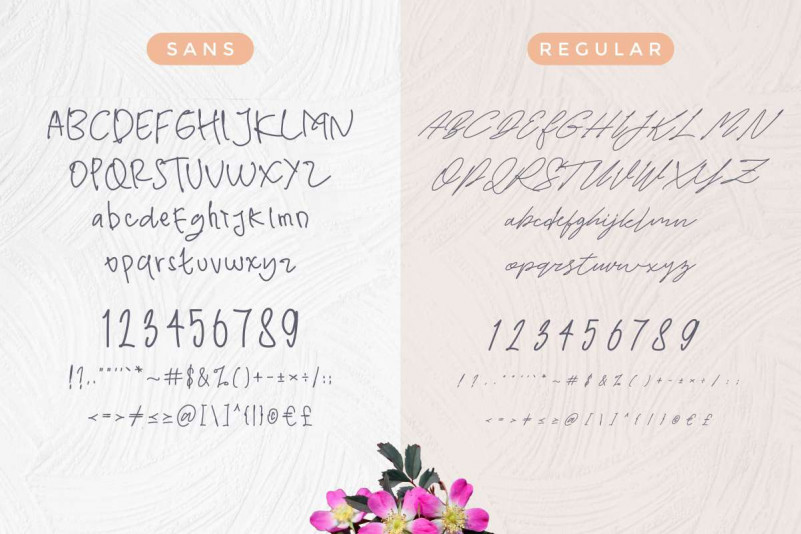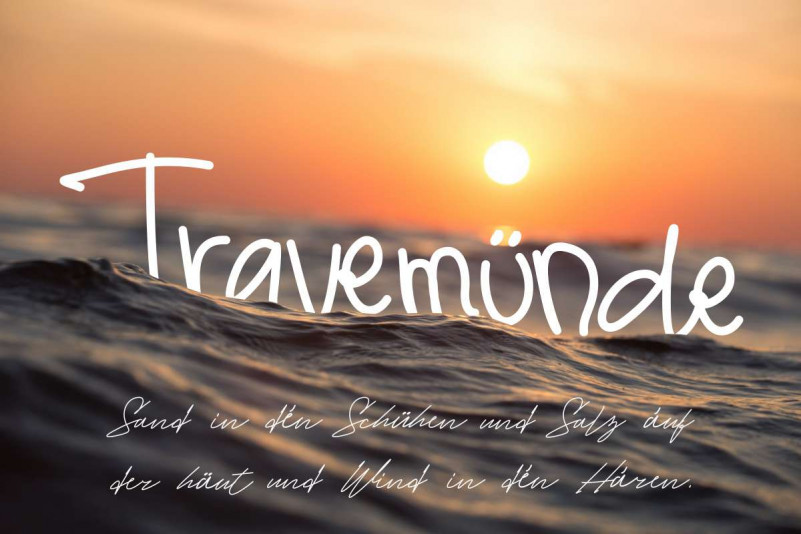
WhiteHoney Font Duo
What’s up everybody! Introducing our newest font : WhiteHoney Font Duo ! This is a new script calligraphy style font. It has a beautiful and stylish glyphs. Will be perfect for any designs projects.